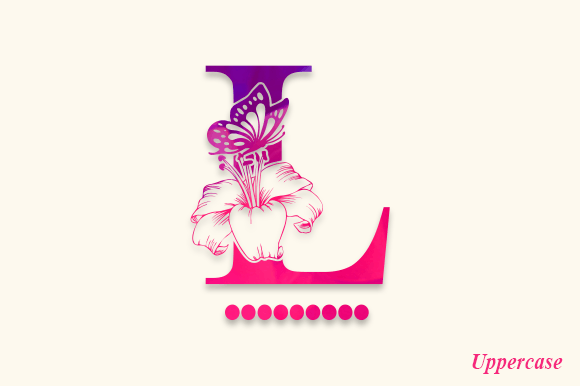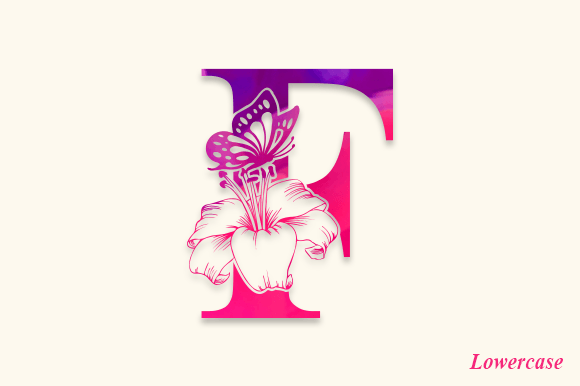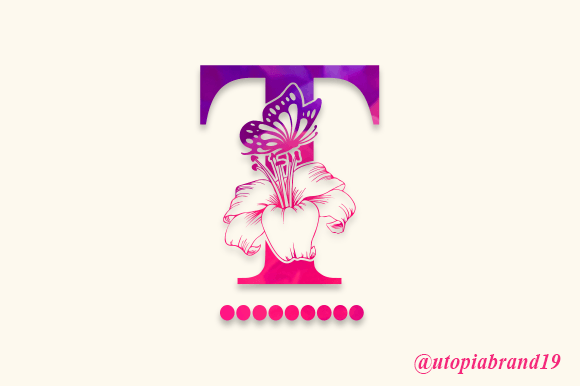
Discover the Magic of Butterfly and Lily Flower Font
Have you ever been brainstorming ideas for a special project, and suddenly, a spark of inspiration hits you? For designers, it’s that moment when everything falls into place, and creativity flows freely. For me, it was the day I stumbled upon the enchanting Butterfly and Lily Flower Font.
This beautiful decorative font is more than just a typeface – it’s an experience. With its lovely ornaments and elegant design, the Butterfly and Lily Flower Font is perfect for creating stunning wedding invitations, beautiful stationery art, eye-catching social media posts, and adorable greeting cards. Its authentic feel will transport your audience to a world of romance and whimsy.
As a valuable asset for designers, the Butterfly and Lily Flower Font offers endless possibilities for creativity and self-expression. Whether you’re a seasoned pro or just starting out, this font is sure to inspire your next project and leave a lasting impression on your audience.
Key Features of Butterfly and Lily Flower Font
- Unique Characteristics: Features beautiful, hand-drawn illustrations of butterfly and lily flowers, perfect for adding a touch of elegance and whimsy to designs
Butterfly and Lily Flower Font Review
This font, in my opinion, has some beautiful aspects that make it a unique and charming addition to any project ✨. The first thing that caught my eye was the intricate design of the flowers and leaves, which add a touch of whimsy and elegance. The bold and playful nature of the butterfly makes it a great choice for titles and headings. Additionally, the font is highly legible, even at smaller sizes.
However, there are a few limitations that might make it less suitable for certain projects ⚠️. For example, the font’s lack of scalability means it might not look as good at larger sizes, and the delicate details of the flowers and leaves can get lost in print. Additionally, the font’s limited character set might make it less versatile for longer texts.
Here are some of the font’s key features:
- Unique and playful design ✨
- Intricate details of flowers and leaves
- Bold and playful butterfly
- Highly legible, even at smaller sizes
- Limited scalability
- Limited character set
Overall, I think the Butterfly and Lily Flower Font is a great choice for projects that require a touch of whimsy and elegance, but it might not be the best fit for more formal or lengthy texts.
Use the Butterfly and Lily Flower font for:
Floral-themed designs and branding
Whimsical and playful text effects